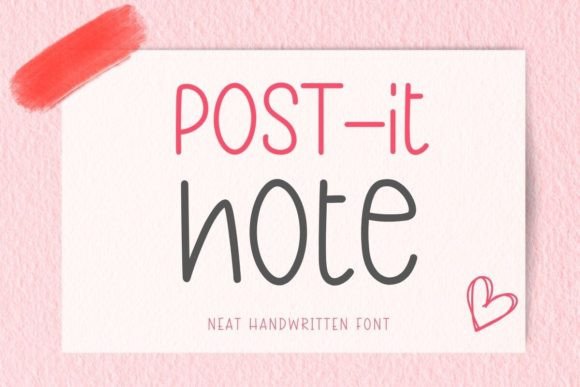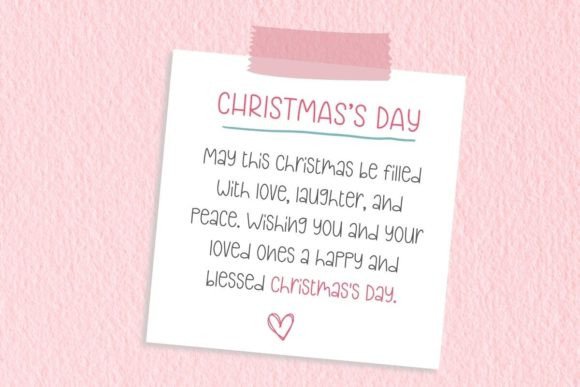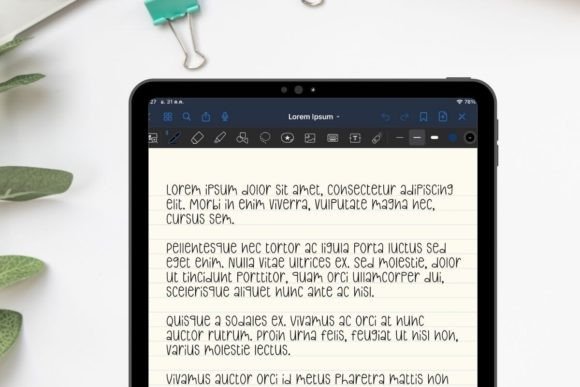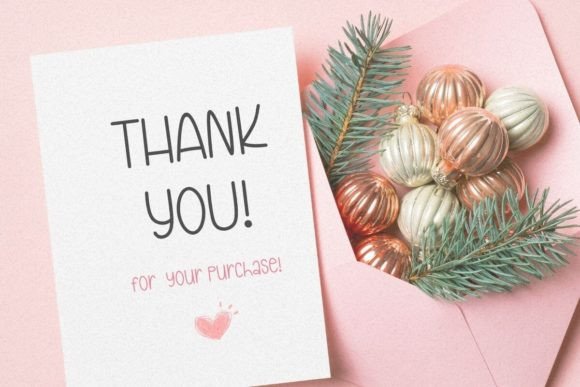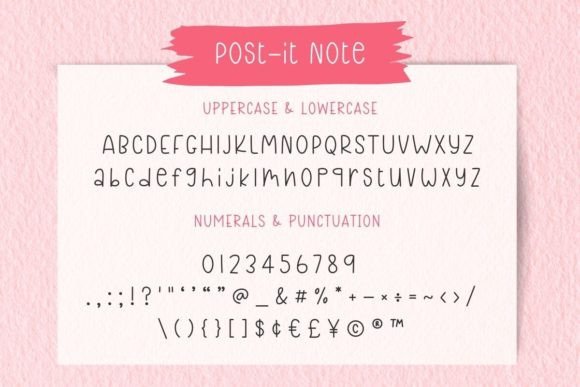
Post It Note Font
Post-it Note is a neat and realistic handwritten font perfect for planners, Goodnotes, and Note taking Apps. Whether you’re planning your week, journaling, or creating digital art.